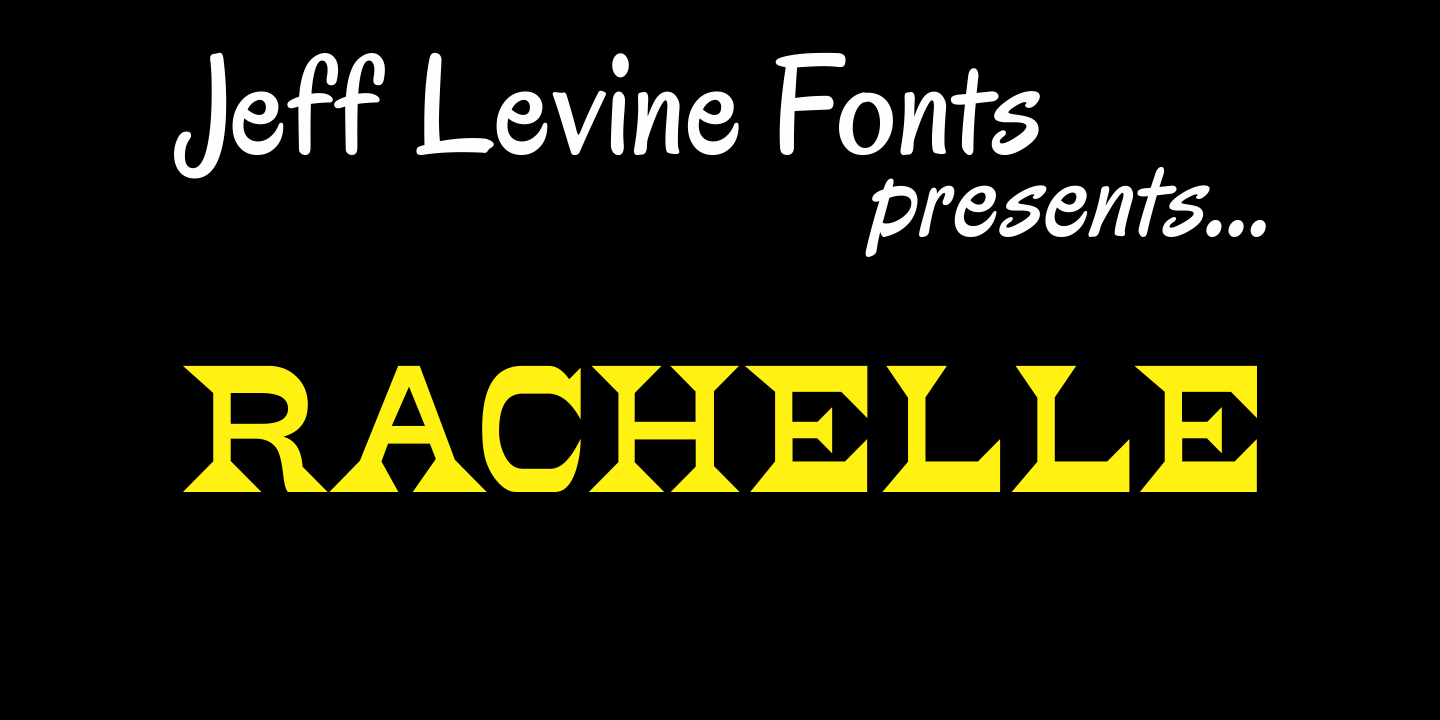
Rachelle
One of Jeff Levine's friends kept requesting that he name a font after her, and he finally obliged with Rachelle JNL. The font gets its inspiration from the antique wood type version of the popular font most often known as a Latin typeface - complete with spur serifs and all of the usual quirks of wooden type.